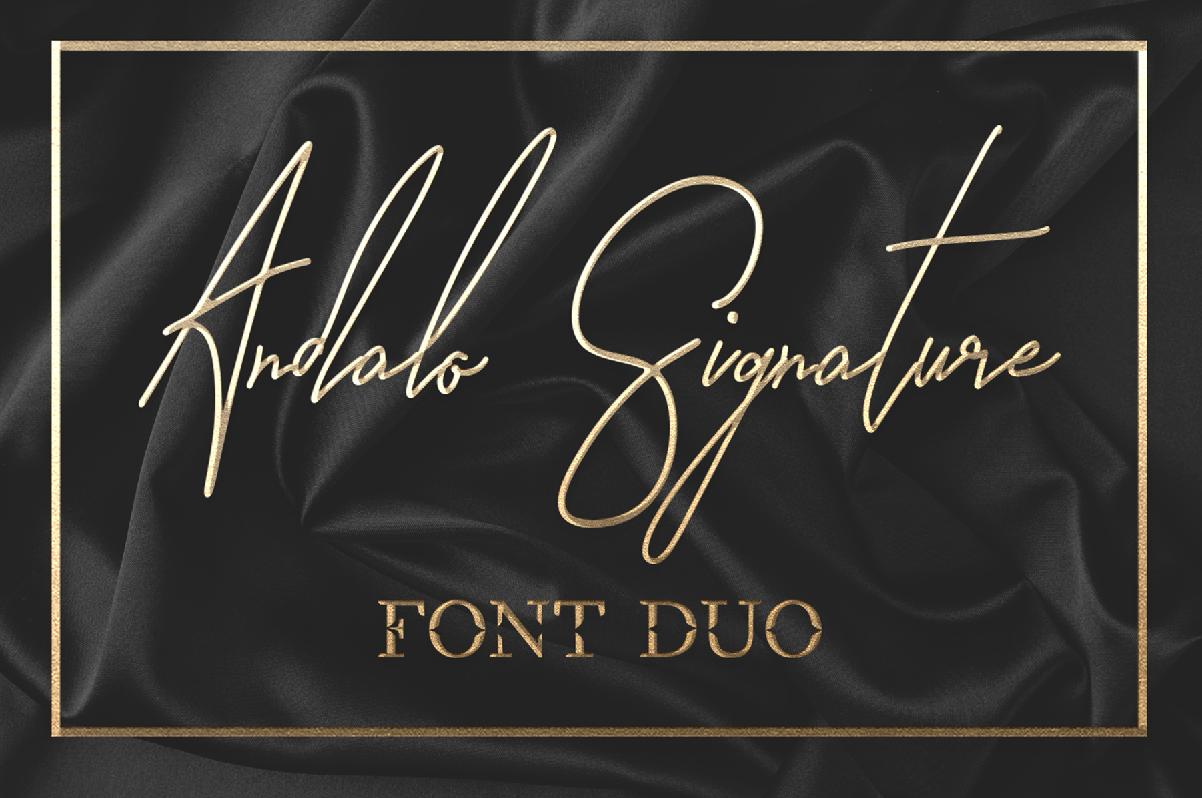
Andalo Font DUO
The Andalo Font Duo is an authentic hand made font duo that couples a bouncy signature script with an all-caps sans serif! It’s perfect for logos, branding, prints, and more.
Andalo Signature is a beautiful and modern handwritten font script. This elegant and beautiful font is stylish and versatile so you can use in a plethora of designs in both digital and print applications.
Andalo Serif is an all-caps sans serif font that combines perfectly with the Signature style.